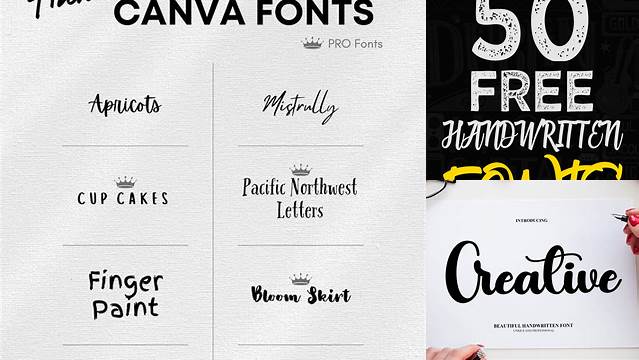
Freehand Font Style: A Comprehensive Guide To Handwritten Typography
Hey everyone! 👋 Ever wanted to give your designs a personal touch, a unique flair that screams 'handmade'? Well, look no further than the freehand font style! It's like injecting a dose of your own handwriting directly into your projects. Today, we're diving deep into the world of freehand fonts, exploring their awesomeness, how to use them, and where to find the perfect ones for your next creative venture. Let's get started, shall we?
The Allure of Freehand Fonts: Why They're So Darn Appealing
So, what's the big deal about freehand fonts? Why are they so popular, and why should you care? The answer is simple: authenticity and personality. In a world dominated by sleek, polished designs, freehand fonts bring a breath of fresh air. They're imperfect, they're human, and they exude a certain charm that's hard to resist. Think about it – when you see a handwritten note, doesn't it feel more personal, more genuine? That's the magic of freehand fonts. They instantly connect with your audience on a more emotional level. This style of fonts can make your designs stand out.
Firstly, freehand fonts add a layer of warmth and approachability. They feel less corporate and more like a friendly chat with a friend. This can be incredibly valuable in marketing and branding, as it helps to build trust and create a connection with your audience. Secondly, freehand fonts can convey a sense of creativity and originality. They're often associated with artistic endeavors and can instantly elevate your designs, making them look more unique and inspiring. They break away from the typical digital feeling of a font style. You can find many freehand font styles on the internet such as chalk, brush, marker, or script. Thirdly, they're incredibly versatile. From logos and branding to posters, websites, and social media graphics, freehand fonts can be used in a variety of ways to create a cohesive and visually appealing design. Fourthly, they're easy to use. Most freehand fonts are designed to be easily implemented, making them a user-friendly option for designers of all skill levels.
And finally, they're just plain fun! There's something incredibly satisfying about using a font that feels like it was made with a pen or brush. It adds a touch of playfulness and spontaneity to your work, which can be a refreshing change of pace. So, whether you're a seasoned designer or just starting out, freehand fonts are definitely worth exploring. They're a powerful tool for injecting personality, creativity, and authenticity into your designs, making them more engaging and memorable for your audience. Get ready to add some soul to your designs – the world of freehand fonts awaits!
Types of Freehand Fonts: A Diverse Palette for Every Project
Alright, guys, let's dive into the different types of freehand fonts out there. Knowing the various styles will help you choose the perfect one for your specific project. Freehand fonts aren't a one-size-fits-all kind of deal; there's a whole spectrum of styles to explore! It's like choosing the right paintbrush for the job – each one offers a unique effect. From the delicate curves of a script font to the bold strokes of a brush font, the possibilities are endless. Here's a look at some popular categories:
Script Fonts:
Think of script fonts as the elegant handwriting of the font world. They're all about flow, with letters often connected to create a seamless, handwritten look. These fonts are perfect for adding a touch of sophistication and charm to your designs. They're often used for invitations, logos, and headings where a graceful touch is desired. Some script fonts are more formal, mimicking the style of traditional calligraphy, while others have a more casual, modern feel. Script fonts can be incredibly versatile, but they also need to be used thoughtfully to avoid clutter or illegibility, especially in body text. Consider the context and the message you want to convey when choosing a script font. The range of script fonts extends from the delicate curves of a traditional pen-and-ink style to bolder, more expressive brush script fonts, allowing designers to inject personality and sophistication into their projects. They are your go-to choice when you want to convey elegance, sophistication, or a personal touch.
Brush Fonts:
These fonts are all about bold strokes and a raw, artistic feel. Brush fonts mimic the look of a brush dipped in paint, with thick and thin strokes that add a sense of movement and energy. They're great for creating a statement and grabbing attention. These fonts are often used in logos, posters, and social media graphics to create a bold and impactful visual. Brush fonts come in many variations, from messy and expressive to more refined and polished, offering a range of options to fit different design needs. The key is to consider the mood you want to convey – are you aiming for a rebellious, artistic vibe or something more approachable and friendly? The key is to choose a brush font that complements your overall design and enhances your message. Brush fonts convey a dynamic and artistic energy that's perfect for projects that need a bit of pizzazz. They're perfect for posters, headlines, and anything that needs to grab attention.
Marker Fonts:
As the name suggests, marker fonts replicate the look of handwriting done with a marker. They often have a slightly rough, imperfect edge, giving them a playful and informal vibe. These fonts are excellent for projects that need a youthful, friendly, and approachable aesthetic. Think of these as the casual, friendly cousins of the freehand font family. They are often used for fun projects, such as children's books, casual branding, and social media posts, where a more laid-back, hand-drawn feel is desired. Marker fonts can add a touch of authenticity and personality to your designs, making them feel more genuine and relatable. The marker font style often features thicker strokes and a slightly imperfect edge, replicating the visual texture of handwriting with a marker.
Chalk Fonts:
These fonts capture the essence of chalk on a chalkboard. They're usually rough, textured, and have a classic, vintage feel. Chalk fonts are ideal for projects that aim for a rustic, educational, or nostalgic aesthetic. They are often used in restaurant menus, signage, and branding for businesses that want to convey a sense of tradition and craftsmanship. These fonts are not only visually appealing but also evoke feelings of nostalgia and warmth. Chalk fonts can create a unique and visually interesting effect, setting your design apart from the crowd. They're perfect for a vintage or rustic vibe, often used for menus, signage, and educational materials.
Handwritten Fonts:
As the name suggests, these fonts are designed to mimic the look of actual handwriting. This style can range from casual to formal, depending on the specific font. Handwritten fonts are the most personal and authentic style. The key is to find a font that matches the tone and style of your project. They are a fantastic choice for adding a personal touch. They are best for adding a personal touch to your designs. These fonts offer the most direct connection to the human touch, making them ideal for projects where a personal touch is desired. The level of detail can vary from basic to highly elaborate. Some of them might include different versions of each letter to mimic natural handwriting variations. The result is a design that feels both human and authentic.
Finding Your Perfect Match: Where to Discover Freehand Fonts
Okay, you're sold on freehand fonts and ready to start using them, but where do you find them? Don't worry, there are plenty of resources out there, both free and premium. Finding the right font is like finding the perfect outfit – it can transform your entire look! Here are some of the best places to discover your perfect font match:
Free Font Websites:
Let's start with the freebies, shall we? Several websites offer a vast selection of free freehand fonts. Keep in mind that free fonts often come with limitations, such as restricted commercial use or fewer font weights. Check the licensing terms carefully before using a free font for your project. Some great websites to explore include Google Fonts, DaFont, Font Squirrel, and Fontspace. These sites offer a wide range of freehand fonts in various styles, allowing you to experiment and find the perfect fit for your designs without spending a dime. These are goldmines for finding all sorts of fonts, including many freehand options. Always double-check the licensing terms before using any free font, but these sites are a great place to start.
Premium Font Websites:
If you're willing to invest a little, premium font websites offer a wider selection of high-quality freehand fonts. These sites usually have more polished fonts, a greater variety of weights and styles, and more flexible licensing options. For serious designers and businesses, premium fonts are often a worthwhile investment. You'll find even more unique and professional options. Websites like Creative Market, MyFonts, and Envato Elements are excellent resources for premium fonts. These platforms offer a vast collection of well-designed freehand fonts, along with detailed information about their usage rights and licensing terms. With premium fonts, you often get more customization options and better support, making them a great choice for commercial projects.
Font Foundries and Designers:
Many independent font foundries and designers create and sell their own fonts. Supporting these artists is a great way to get unique, high-quality freehand fonts while also supporting the creative community. Looking directly at the source can be beneficial. You can often find exclusive fonts that are not available on larger platforms. Researching font foundries can lead you to unique fonts that can set your designs apart. This option often allows you to connect directly with the font creators and learn more about their design process. You'll find unique and exclusive fonts that you won't find anywhere else. Websites like Behance and Dribbble are great places to discover talented font designers. You might find fonts with unique licenses or terms of use that you won't find anywhere else.
Creative Market:
Creative Market is a popular marketplace that offers a wide variety of design assets, including freehand fonts. Here, you'll find fonts created by independent designers, with options ranging from free to premium. They're known for their high-quality design resources. This platform is a fantastic place to find fonts with distinctive character. It is a great choice for both free and premium fonts with different designs. You'll find a wide range of styles, from elegant scripts to playful marker fonts. This platform is a fantastic choice for discovering unique fonts with distinctive character. Creative Market is known for its high-quality design resources. You'll have access to the work of numerous independent designers. The marketplace offers everything from free to premium fonts, ensuring options for every budget and project. Creative Market is a great option if you want a wider selection of designs.
Tips and Tricks for Using Freehand Fonts Like a Pro
Alright, you've got your freehand fonts, now how do you use them effectively? This is where the real fun begins! Using freehand fonts isn't just about picking a font and slapping it on your design; it's about using them strategically to enhance your message and create a visually appealing experience. Like any design element, these fonts are best used in moderation. Here's some advice from the pros:
Choose the Right Font for the Job:
As we discussed earlier, different types of freehand fonts suit different purposes. A playful marker font might be perfect for a children's book, while a sophisticated script font might be better for a wedding invitation. Consider the overall tone and message of your project when selecting a font. The key is to choose a font that complements your design and enhances your message. The choice of font should always reflect the tone, context, and message of your project. Take the time to explore different font styles to find the one that best conveys your message. Evaluate the audience and the overall design goal before making a decision.
Use in Moderation:
While freehand fonts can add a lot of personality, using too many can overwhelm your design and make it difficult to read. The key is to know when to use a specific font style. Sticking to one or two freehand fonts per design is often a good rule of thumb. They should be reserved for headings, quotes, or short blocks of text where you want to draw attention. Overusing them can make your design look cluttered and unprofessional. Too much of anything can be a bad thing, especially when it comes to fonts. Balance the freehand font with more readable, standard fonts for body text. Ensure the overall design isn't overused. Keep the design neat and accessible to readers. This is key to ensuring that your message resonates with the reader. This practice helps maintain visual harmony and readability.
Pair with a Readable Font:
Freehand fonts are often more decorative than readable. For body text, it's best to pair them with a clean, easy-to-read font. The combination will improve readability. A standard font will make your design more professional. This will make sure your audience can understand the text. Pair your freehand fonts with a clear, simple font for body text. This ensures your design is both visually appealing and easy to read. The combination of freehand flair and straightforward text ensures the design balances creativity and functionality. This practice ensures a harmonious balance between style and readability. This practice improves the overall user experience.
Consider Kerning and Tracking:
Kerning and tracking (the spacing between letters and words) can significantly impact the readability of a freehand font. You might need to adjust the spacing to make the text easier to read, especially with script fonts. Adjusting kerning and tracking can greatly improve the visual appearance. Don't be afraid to experiment with these settings to find the perfect balance. This is a critical consideration when using freehand fonts, as they can sometimes be more challenging to read than standard fonts. Adjusting letter spacing can refine the aesthetic of any font style. Proper kerning enhances the design. The correct spacing can make a huge difference. Make sure your text is clear and attractive.
Test for Readability:
Before finalizing your design, test it out! Show it to others and get feedback on its readability. Ensure your freehand font is legible, especially in smaller sizes. You need to be sure the font is easy for your audience to read. If you have any issues with readability, you need to make some adjustments. Always proofread to make sure your message is clear. This is especially important with freehand fonts, which can sometimes be less clear than standard fonts. It is also important to test on different devices and screen sizes. Ask someone else to look at the design with fresh eyes. Making these adjustments will improve the overall user experience.
Use Color Strategically:
The color of your freehand font can greatly impact its visual appeal and message. Consider how color affects your overall design. To make the font stand out, use the right color. Ensure the color choices complement the overall design. Choose colors that enhance the message and complement your design. Make sure the color is in line with your overall branding. The use of color can greatly affect the visual appearance. Consider color theory and its influence. This helps set the mood of your design.
Conclusion: Unleash Your Inner Artist!
So there you have it, folks! A deep dive into the wonderful world of freehand fonts. They're a fantastic tool for adding personality, creativity, and a touch of human warmth to your designs. Now, go forth, experiment with different styles, and let your creativity flow. Remember to choose the right font, use it in moderation, and always consider readability. Get creative, and have fun with it! And, as always, happy designing!